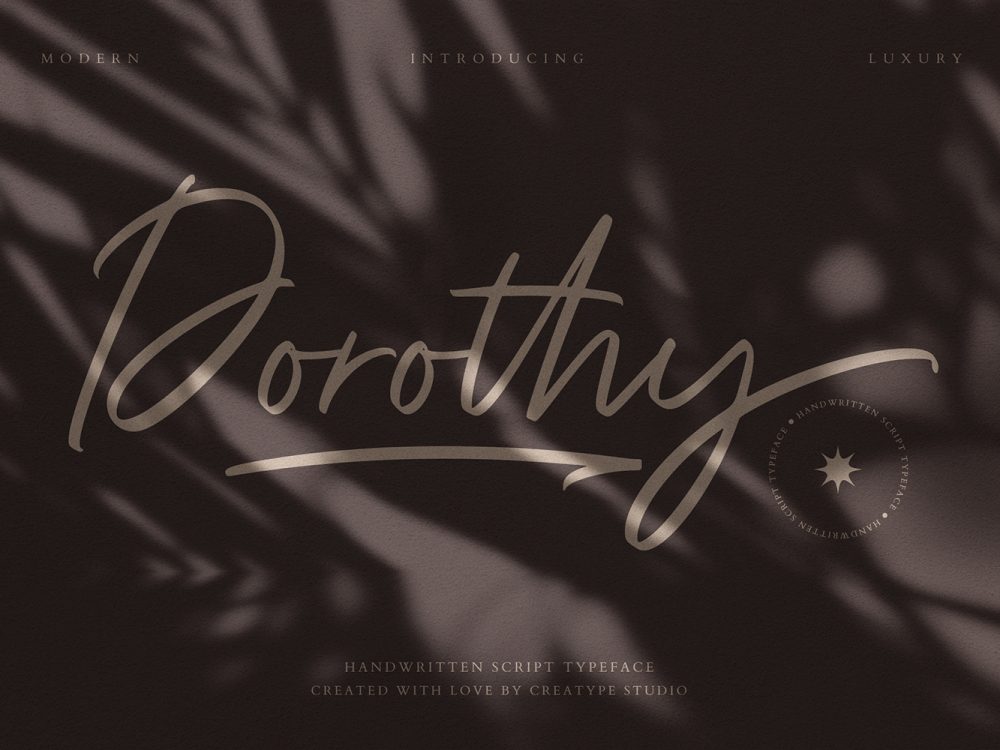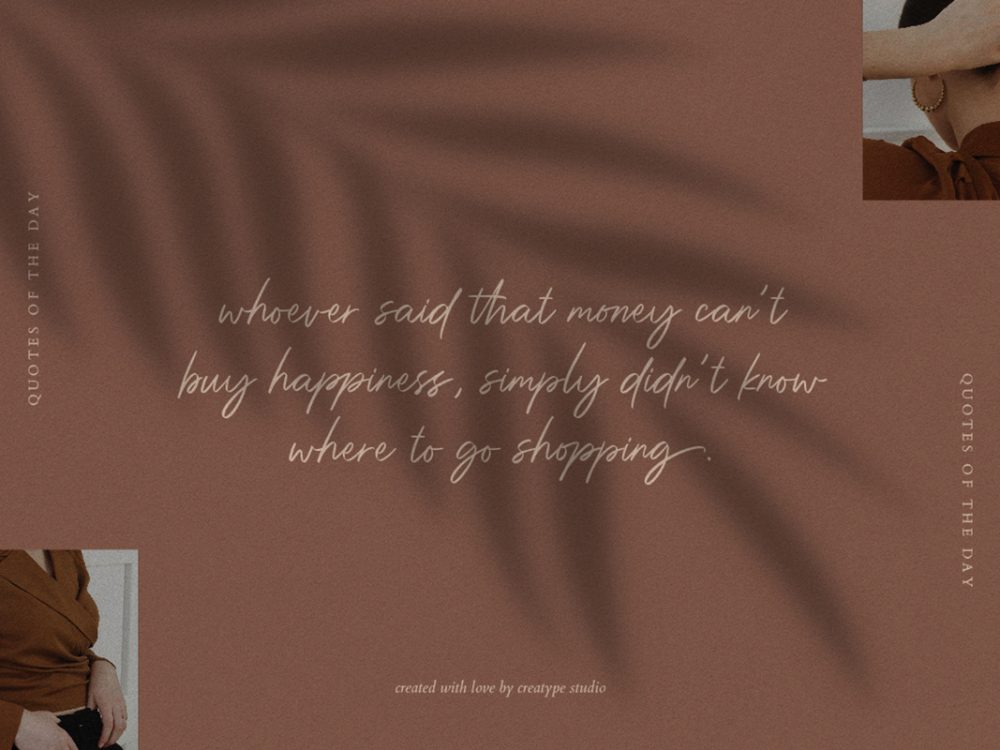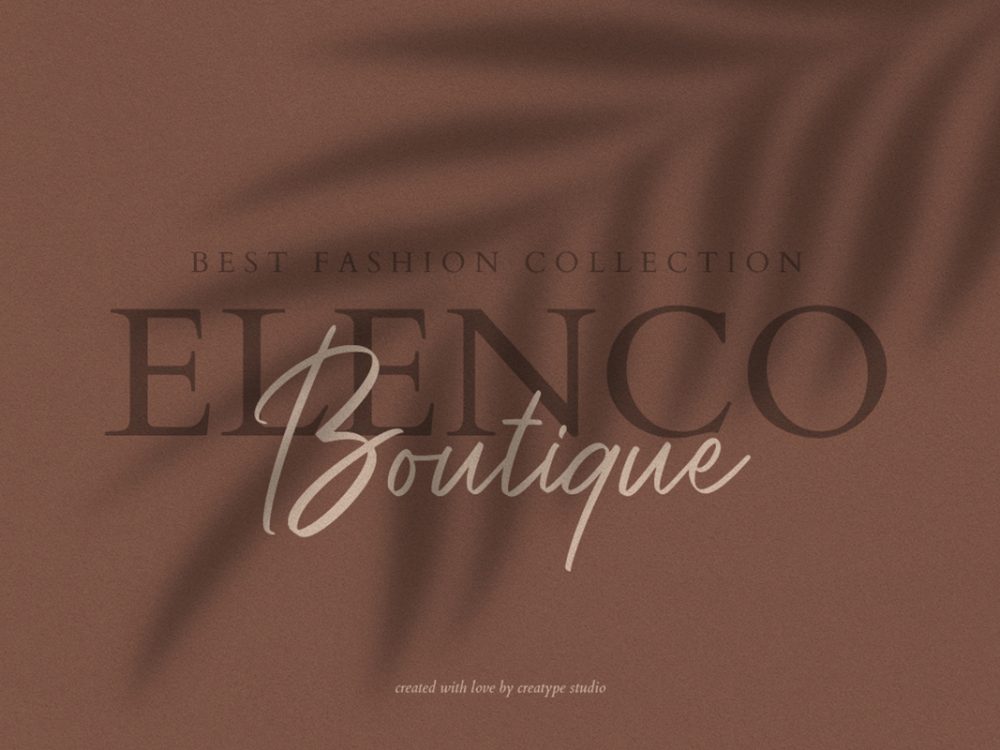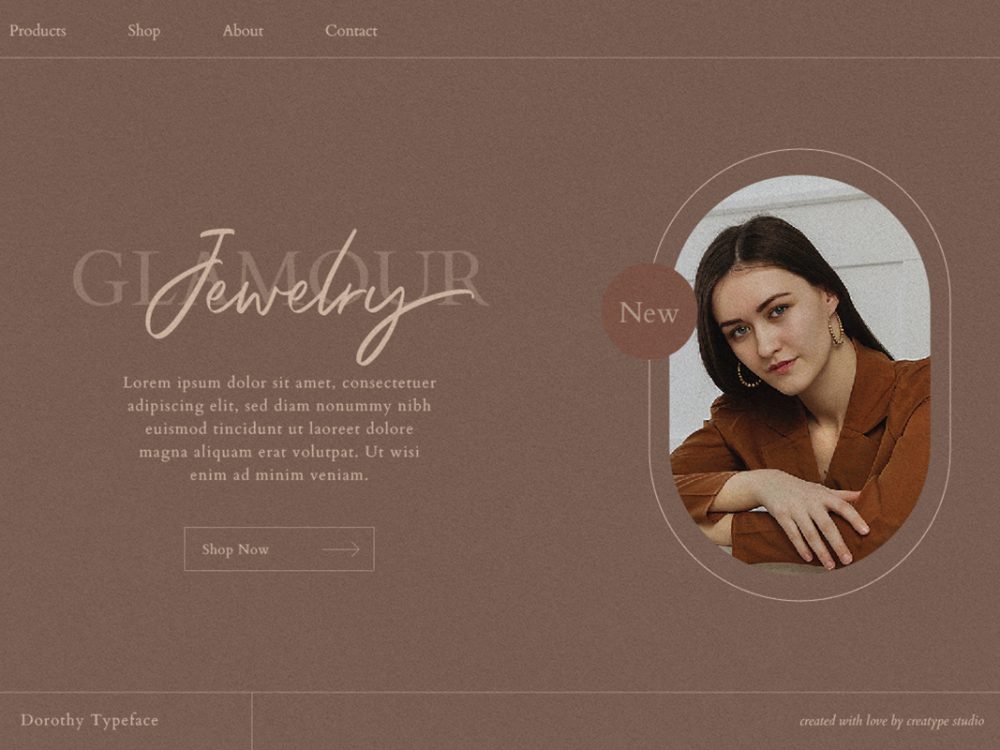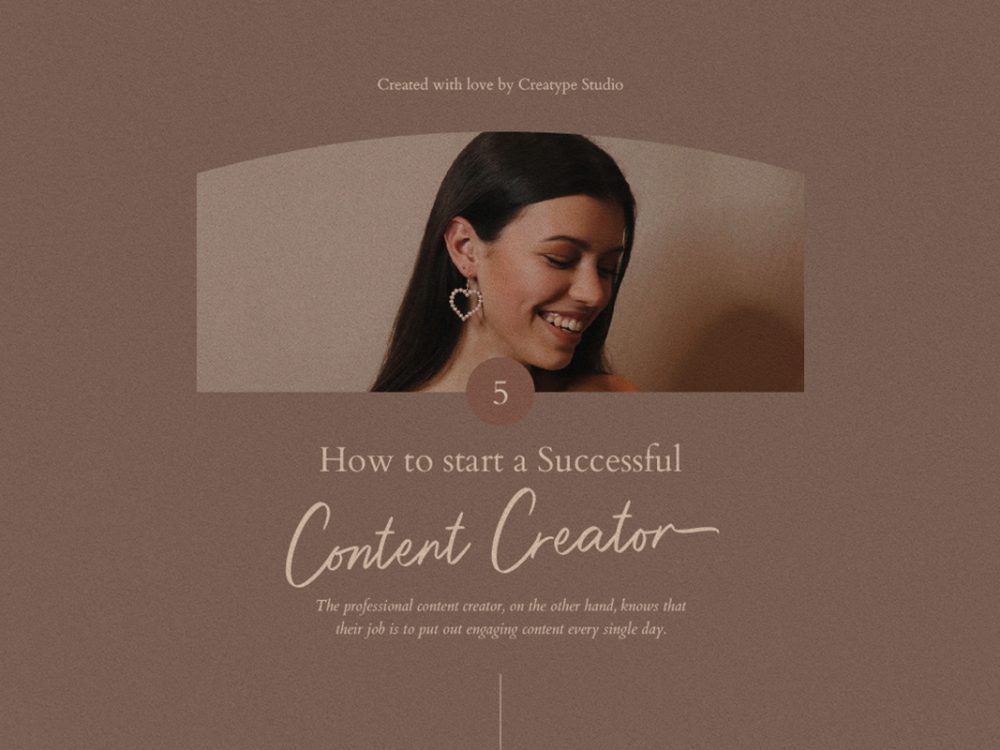
Dorothy Free Font
Dorothy Free Font is an interesting typeface that mimics writing with a brush and has an elegant style. This font is very suitable for creating various design projects that require a handwritten font. These can be posters, cards, invitations, flyers, prints, and much more. If you wish to access more features and use it for commercial work please buy the full version.